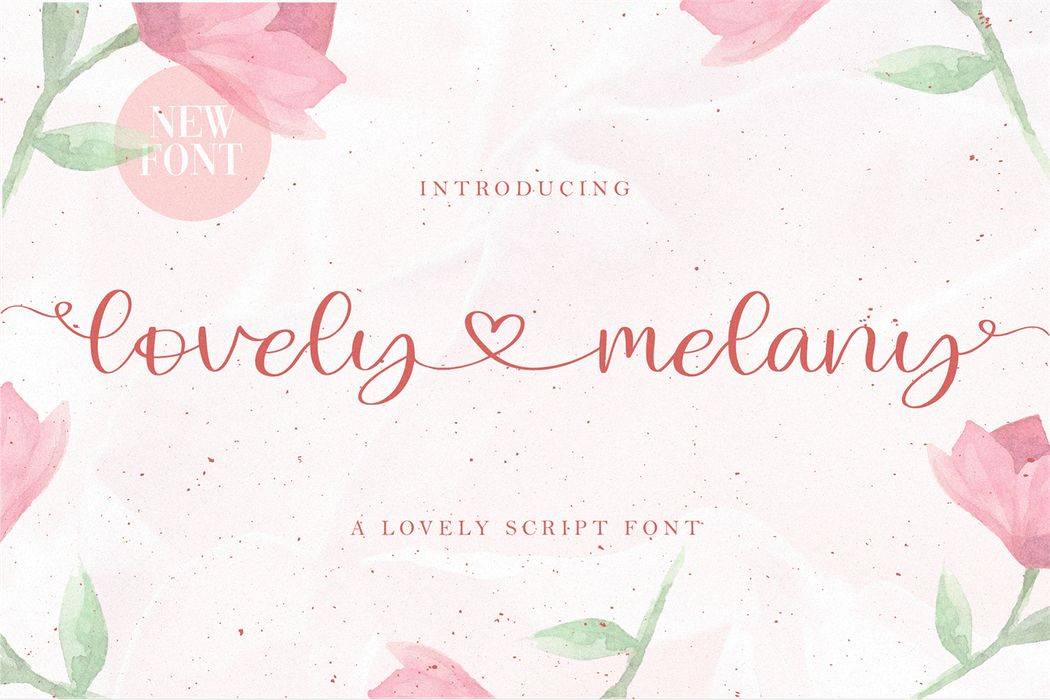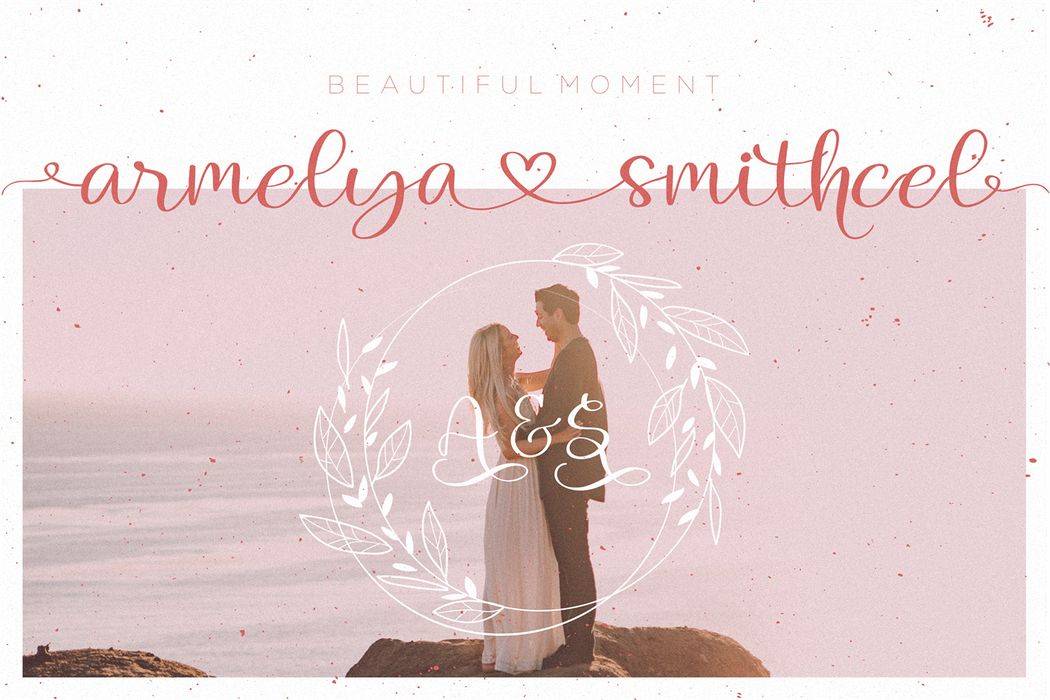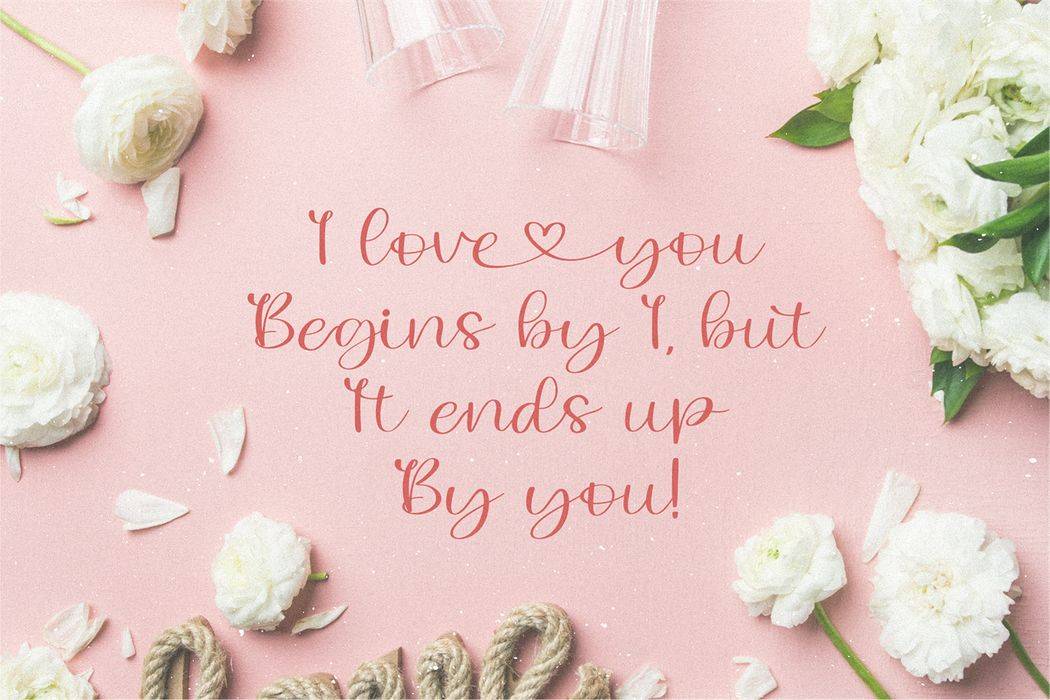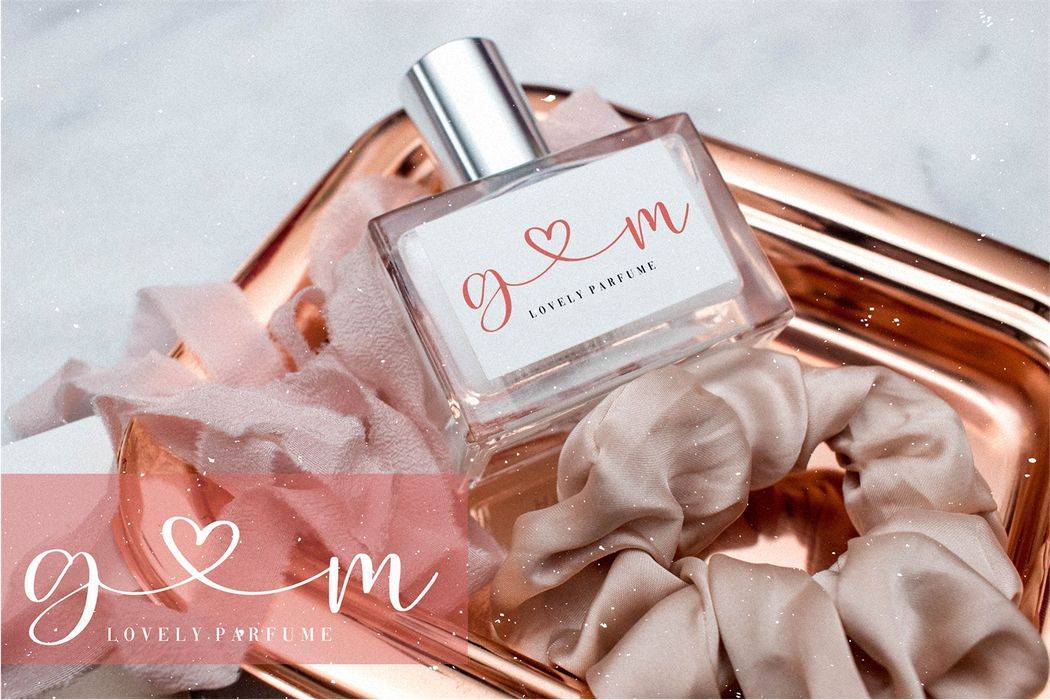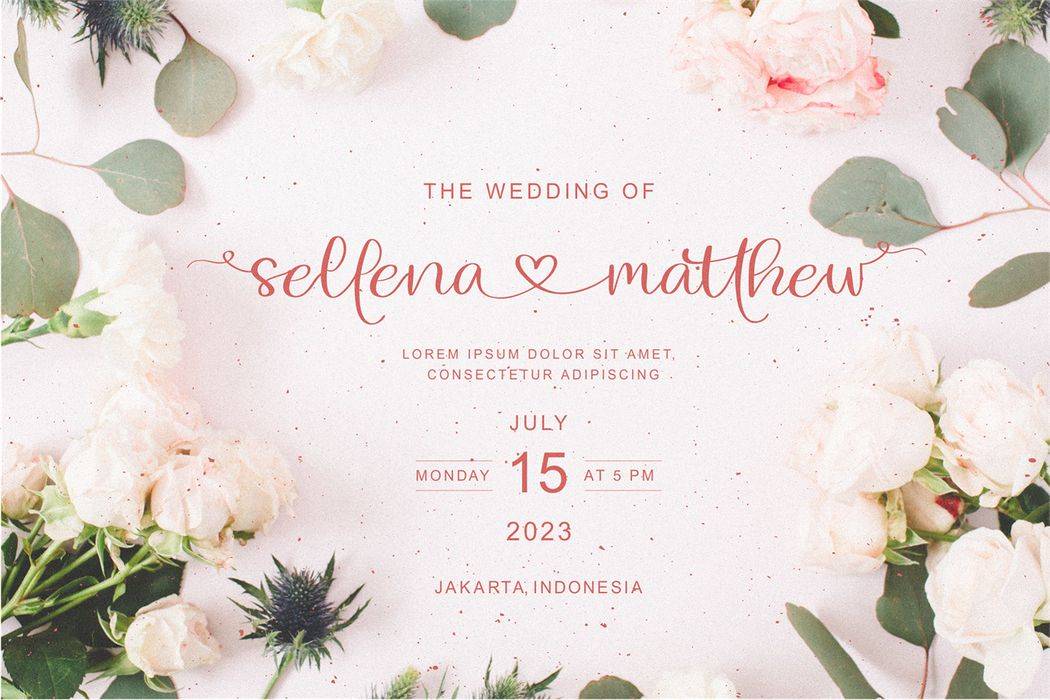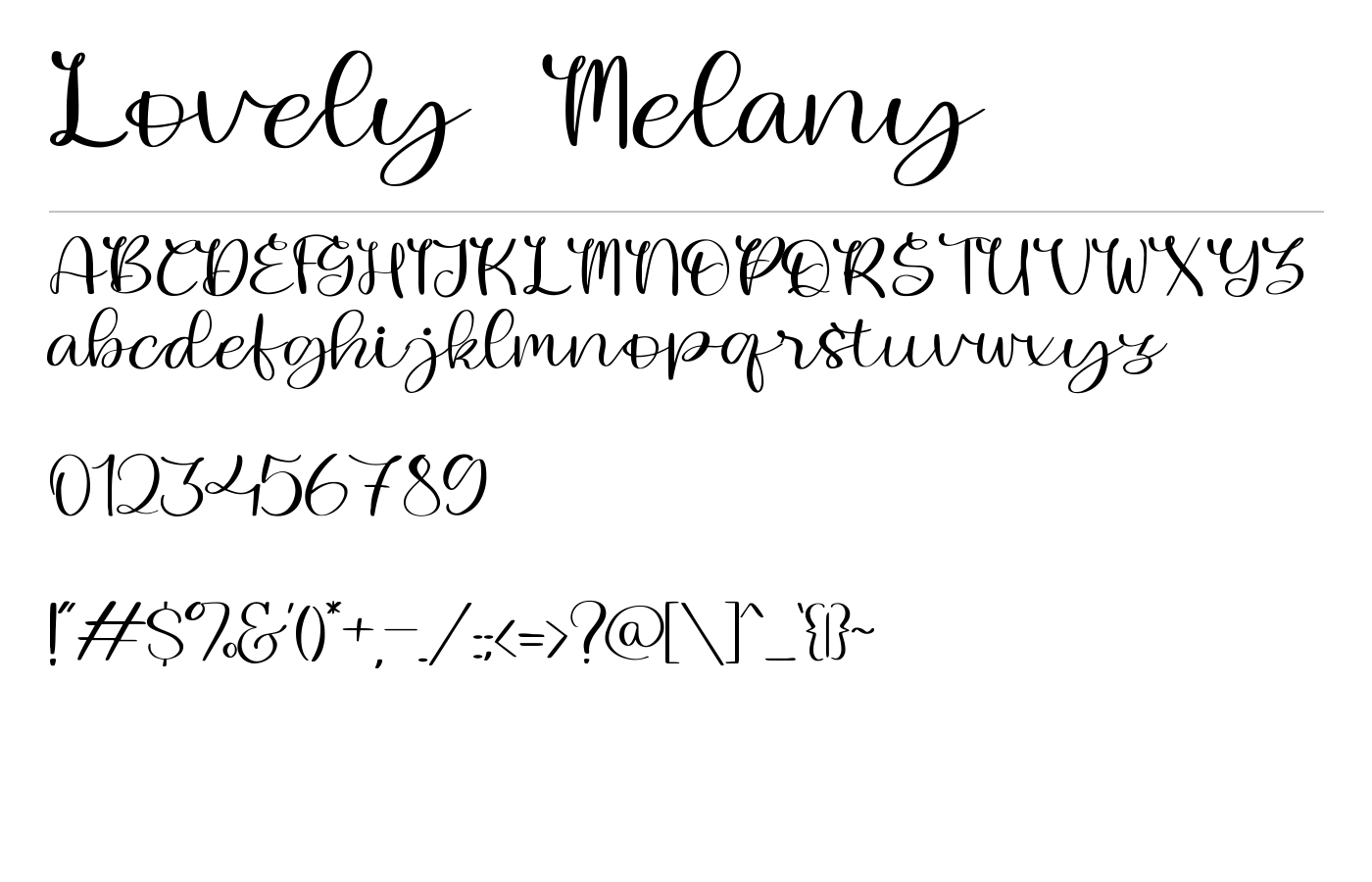
Lovely Melany is a graceful script font featuring elegant, flowing letterforms with delicate strokes and playful curls, giving it a charming, hand-drawn feel. Its light weight and high contrast lines make it perfect for designs that want to convey warmth, femininity, and creativity, ideal for invitations, branding, and stylish headlines. This font stands out for its lively personality and refined yet approachable style.
Lovely Melany Font
About Lovely Melany Font